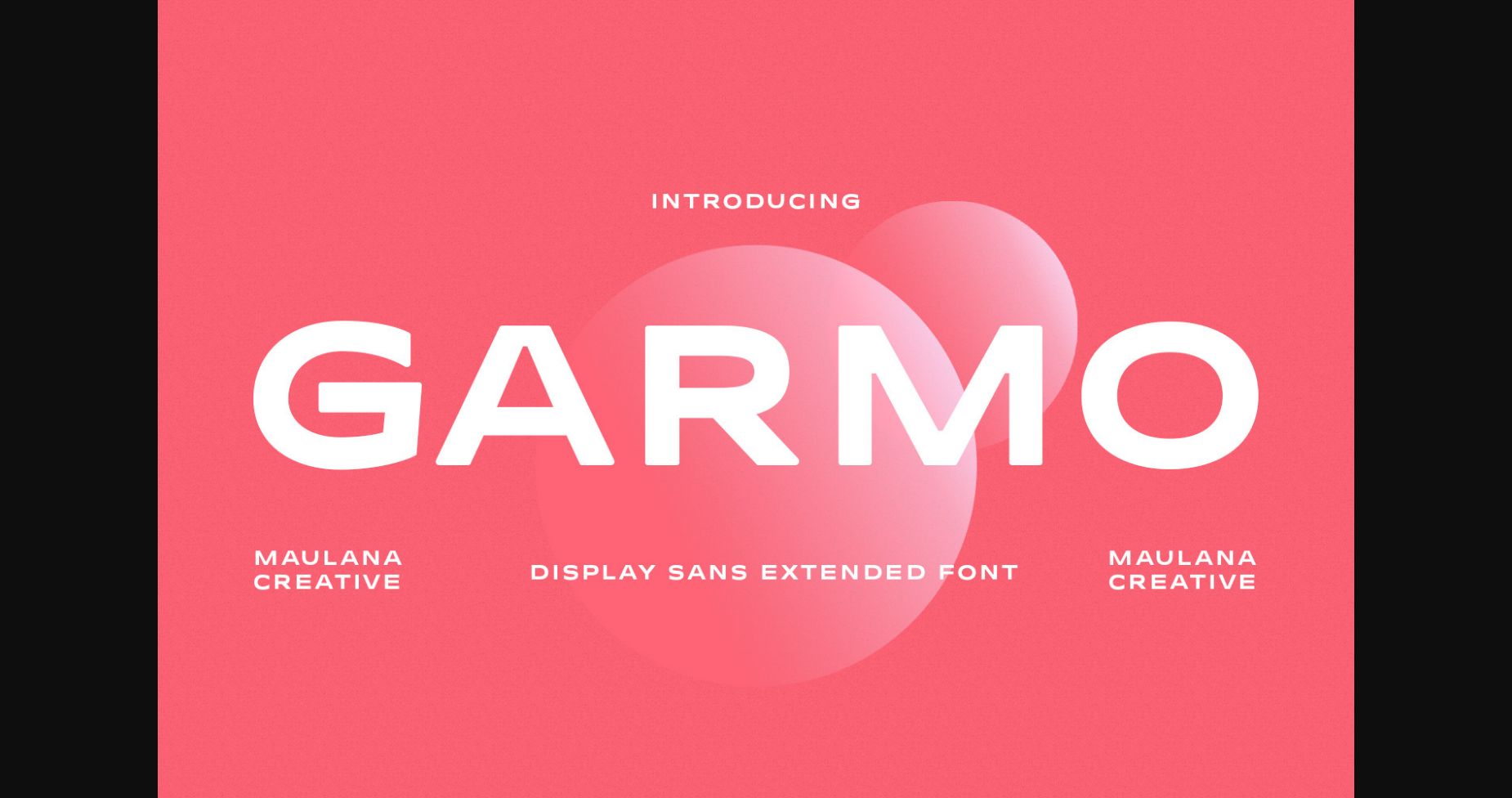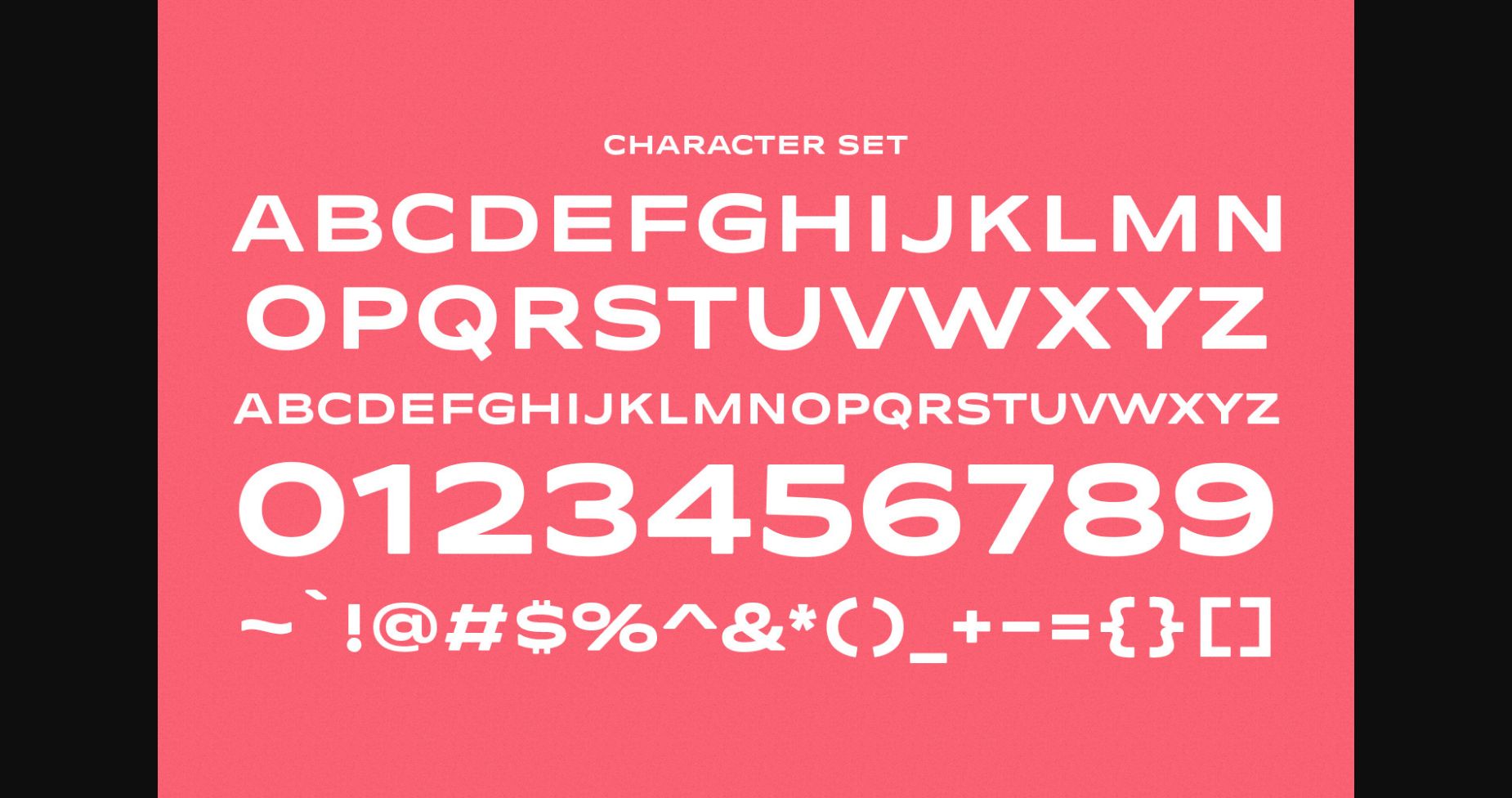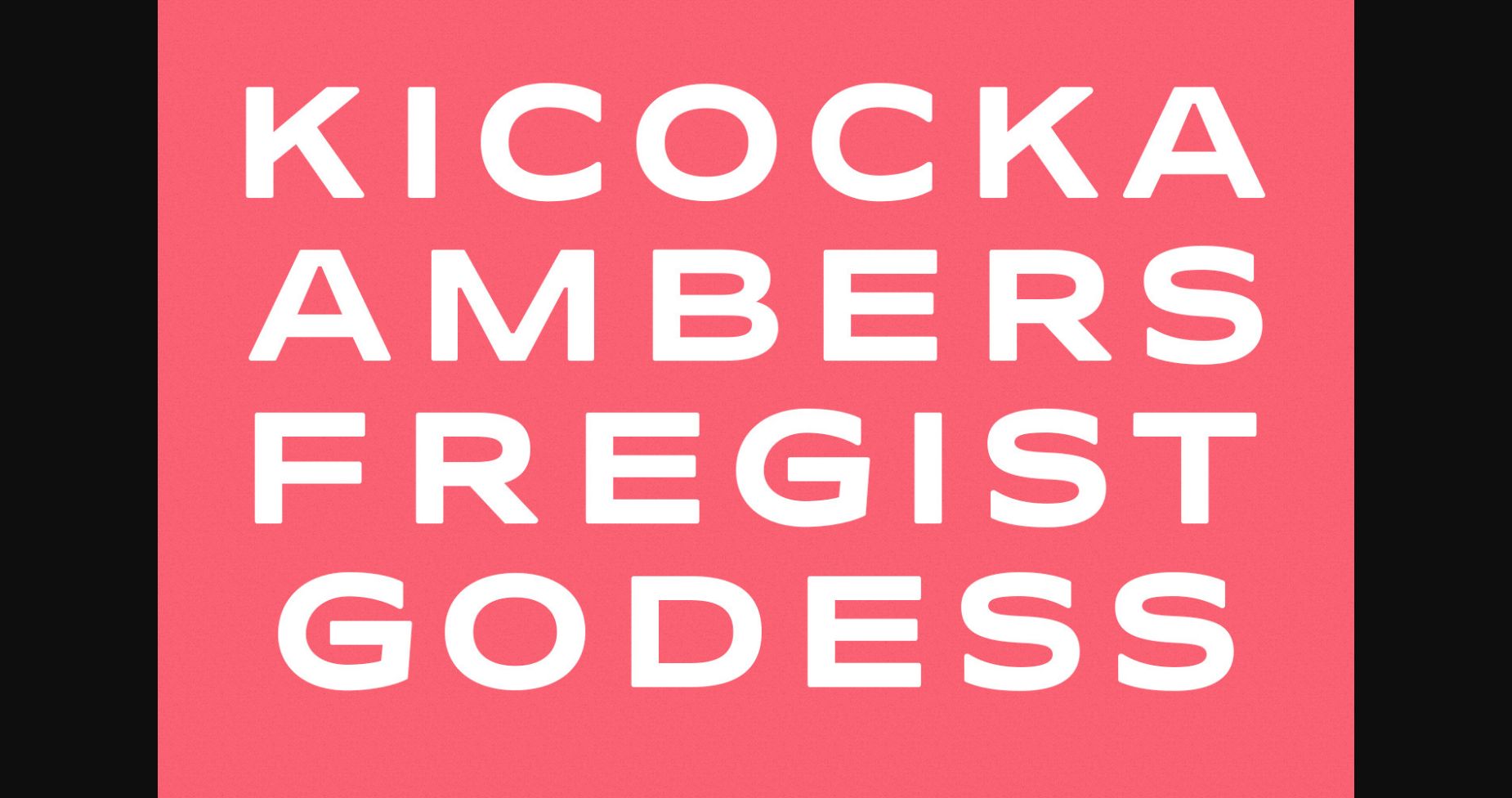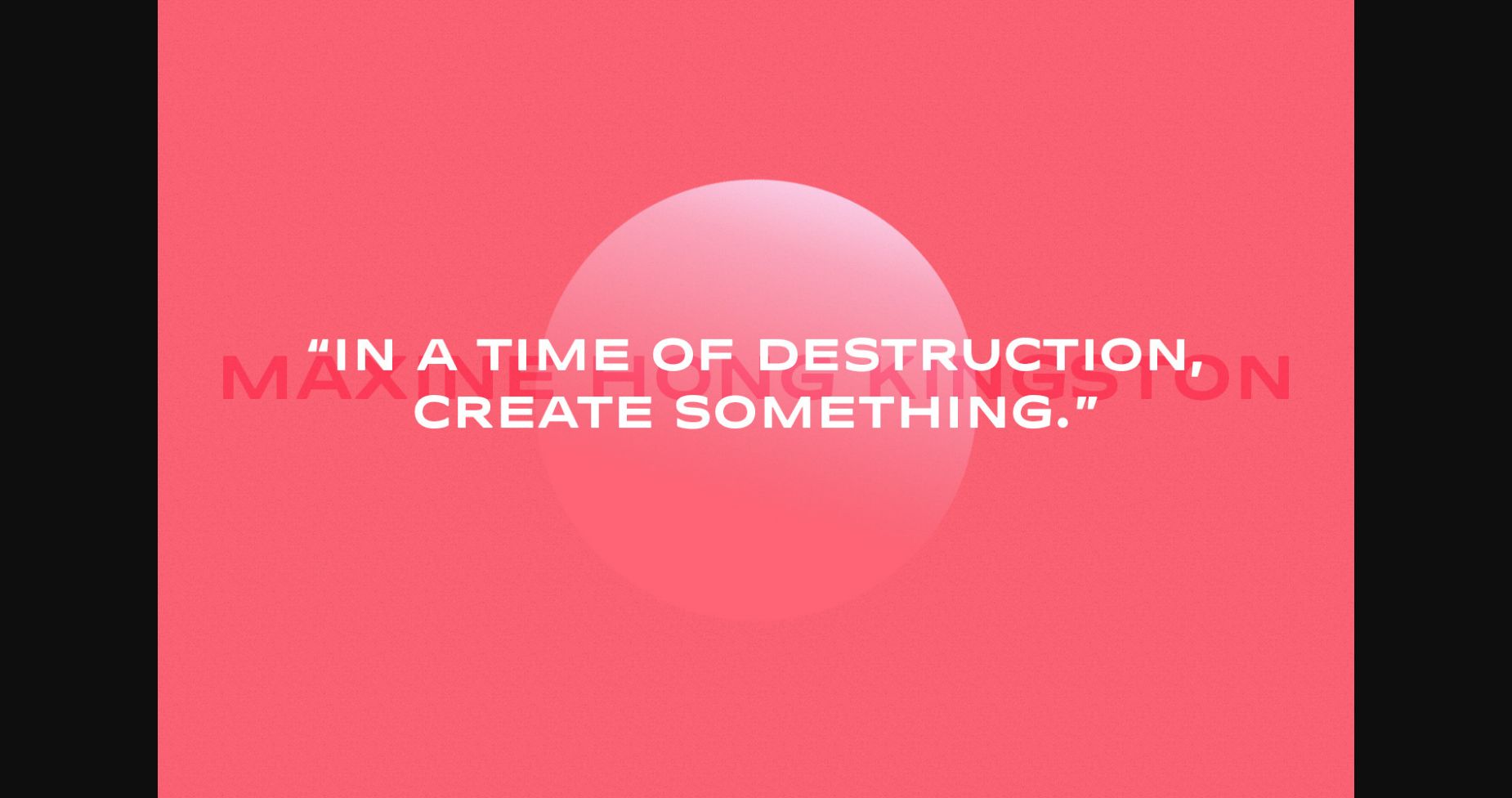
About Garmo Font
Garmo is an attractive sans-serif font featureing clean lines and a modern design, making it perfect for headlines, logos, and advertising. Its eye-catching style is sure to grab your audience’s attention and make your text stand out.